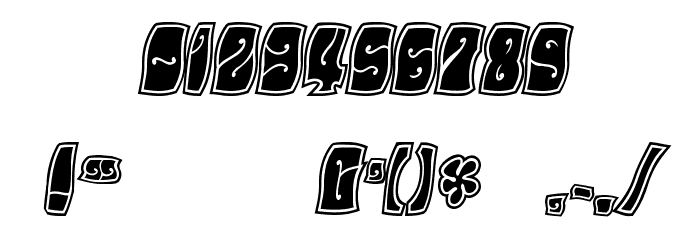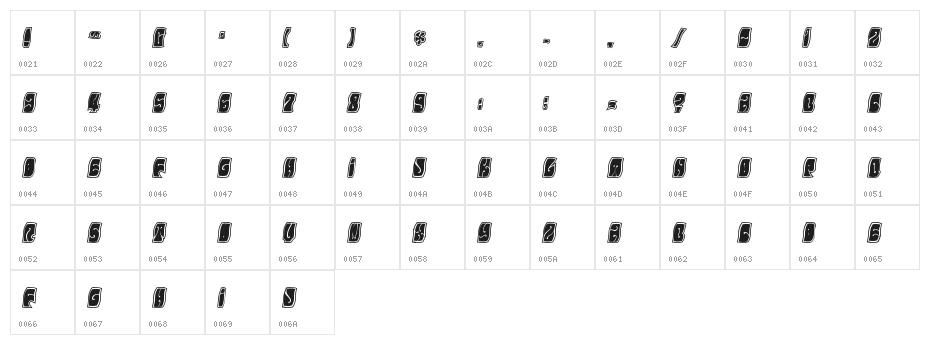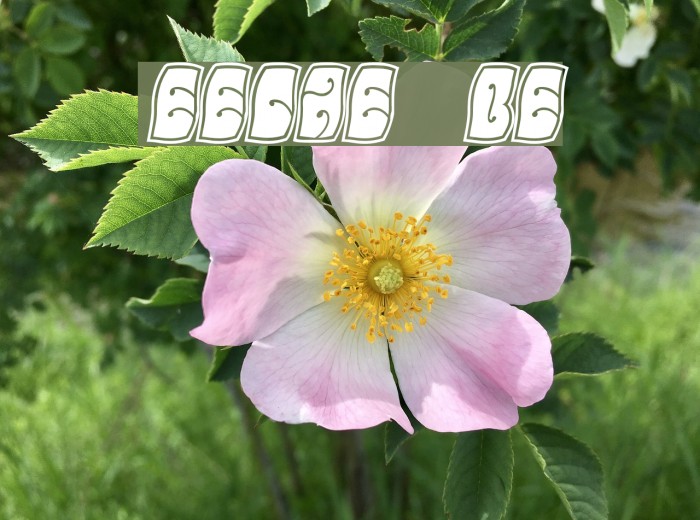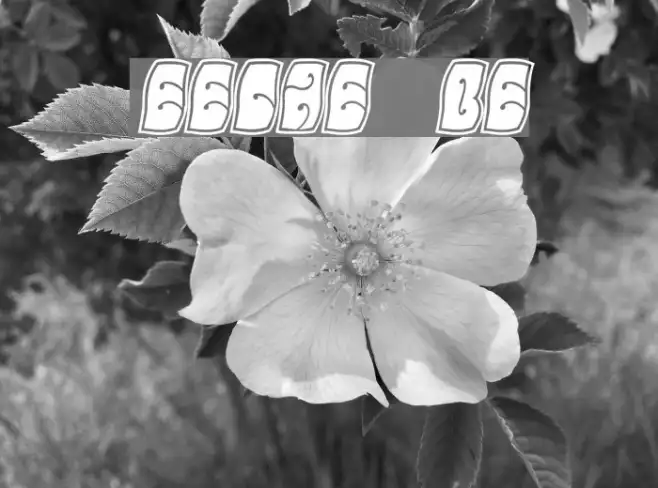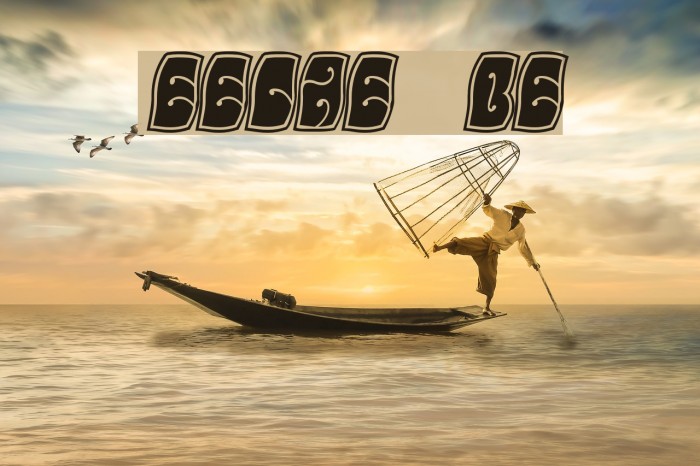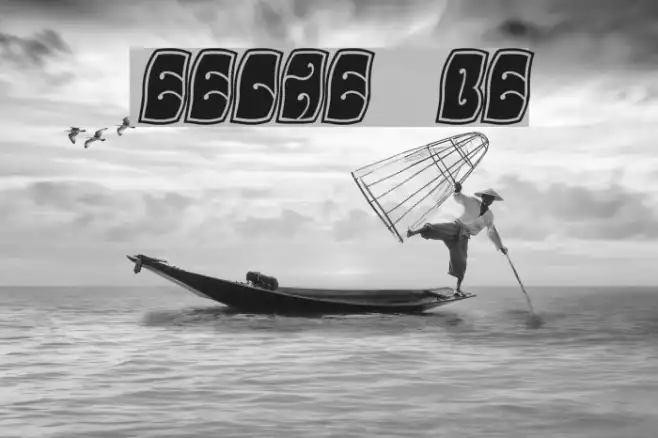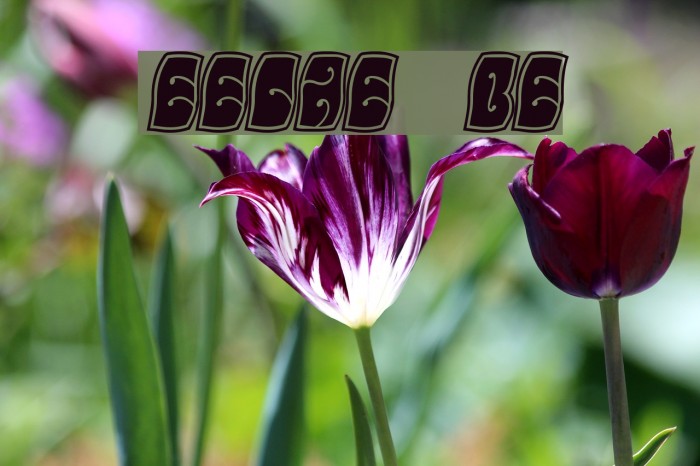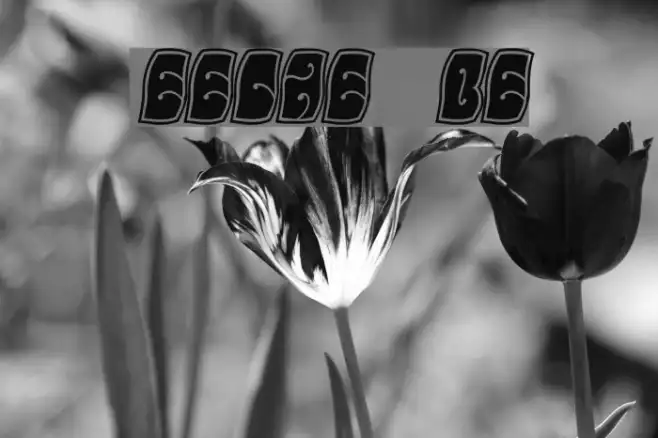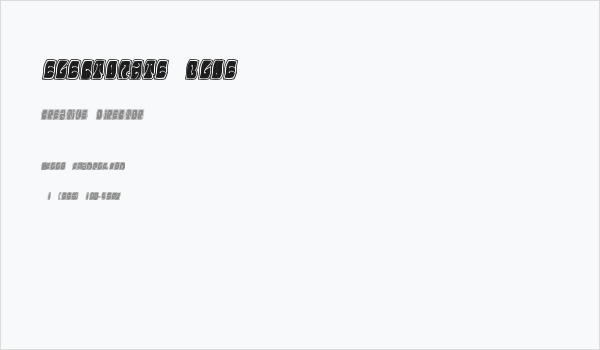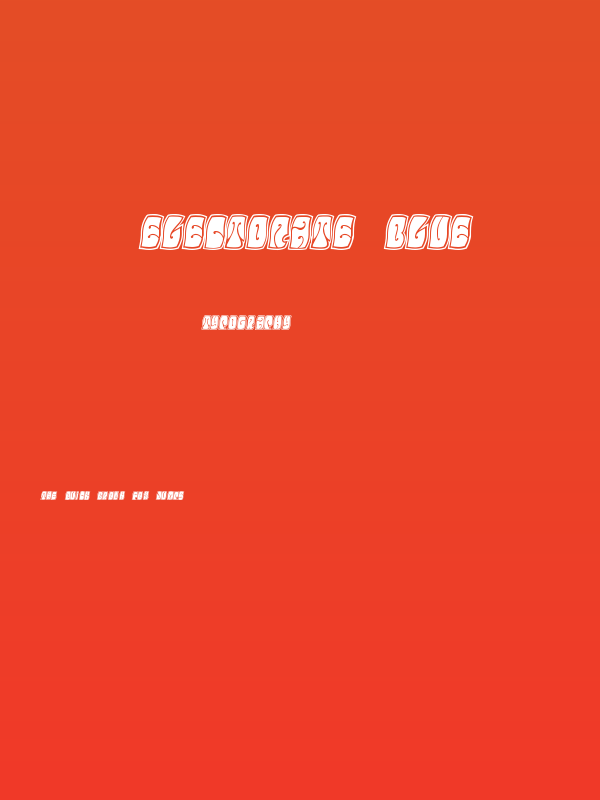
Electorate Blue Font
Electorate Blue Description
This font features a bold, decorative style with a unique, playful design. Each character is enclosed in a thick outline, giving it a three-dimensional appearance. The letters have a whimsical, almost cartoonish quality, with exaggerated curves and angles that create a sense of movement and energy. The font is highly stylized, making it ideal for eye-catching designs. Its bold presence and distinctive look make it suitable for projects that require a strong visual impact. The characters are evenly spaced, ensuring readability despite their intricate design.
| Proposed Projects | Ideal for posters, logos, children's books, and any design requiring a fun, bold statement. |